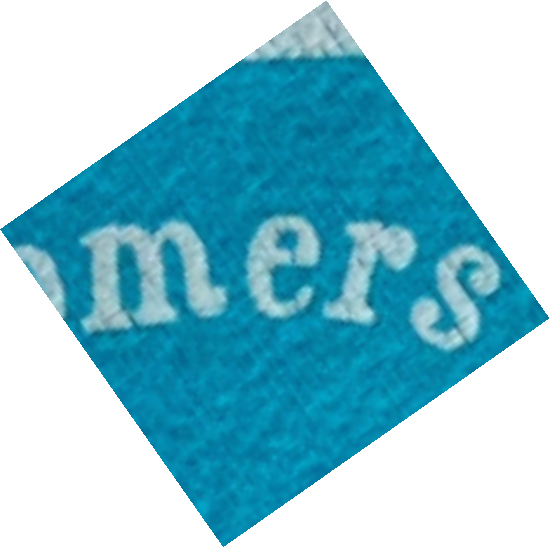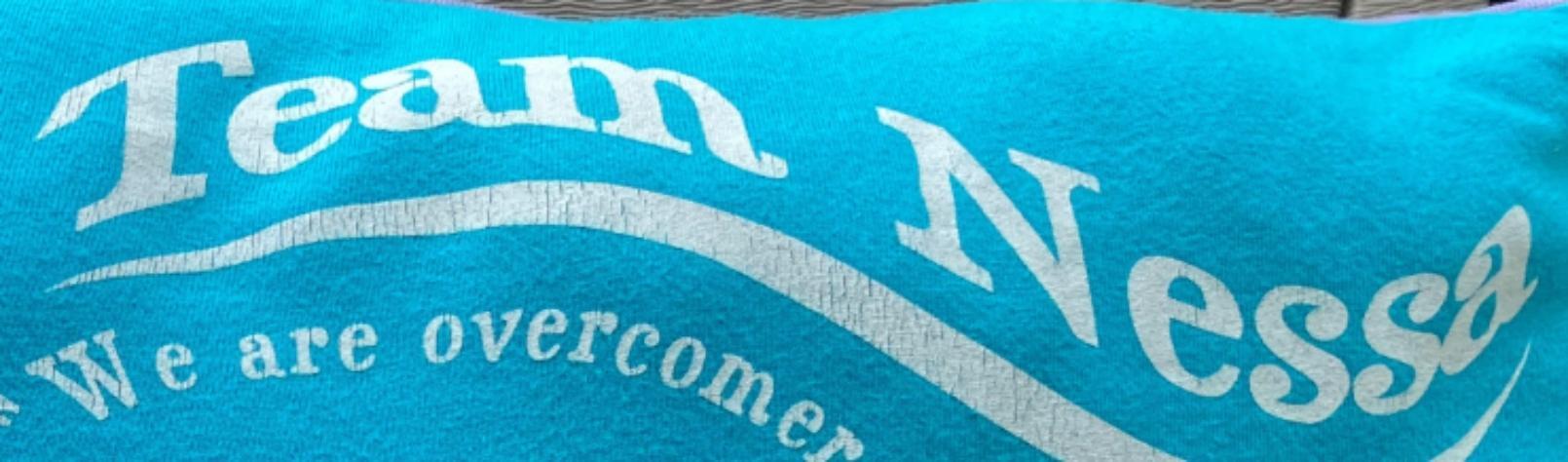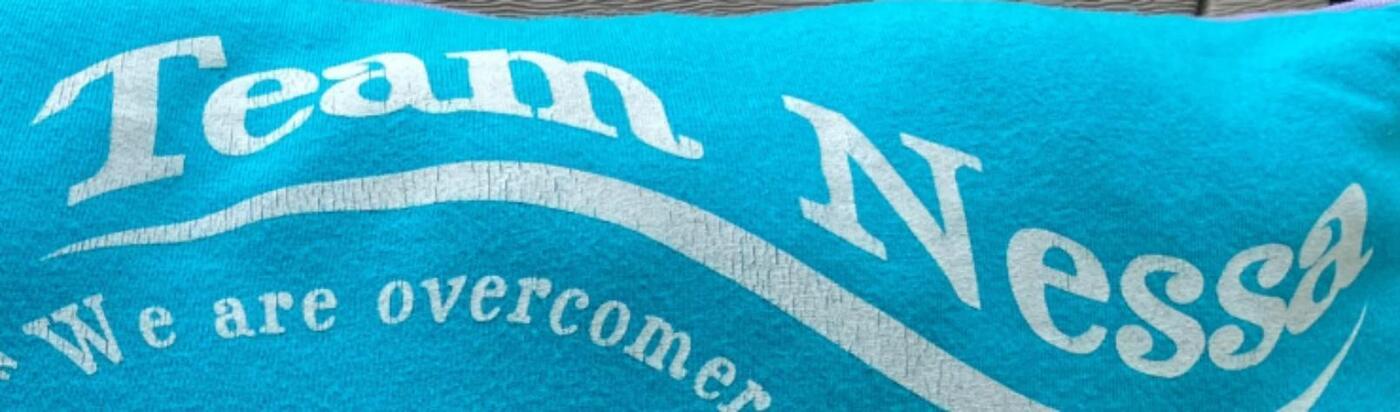
Help Needed To Find Font, Team Nessa shirt
Customer want's this font from a t-shirt about 10 years ago. She was in a horrific accident and survived, but now wants this design printed on cups. It's actually not a distorted font, the shirt is that rough looking. I've looked (I'm sure I'm overlooking it) and cannot find the exact font. I'm thinking it may be multiple fonts. Does anyone have any idea? It's in the serif ball terminal group.